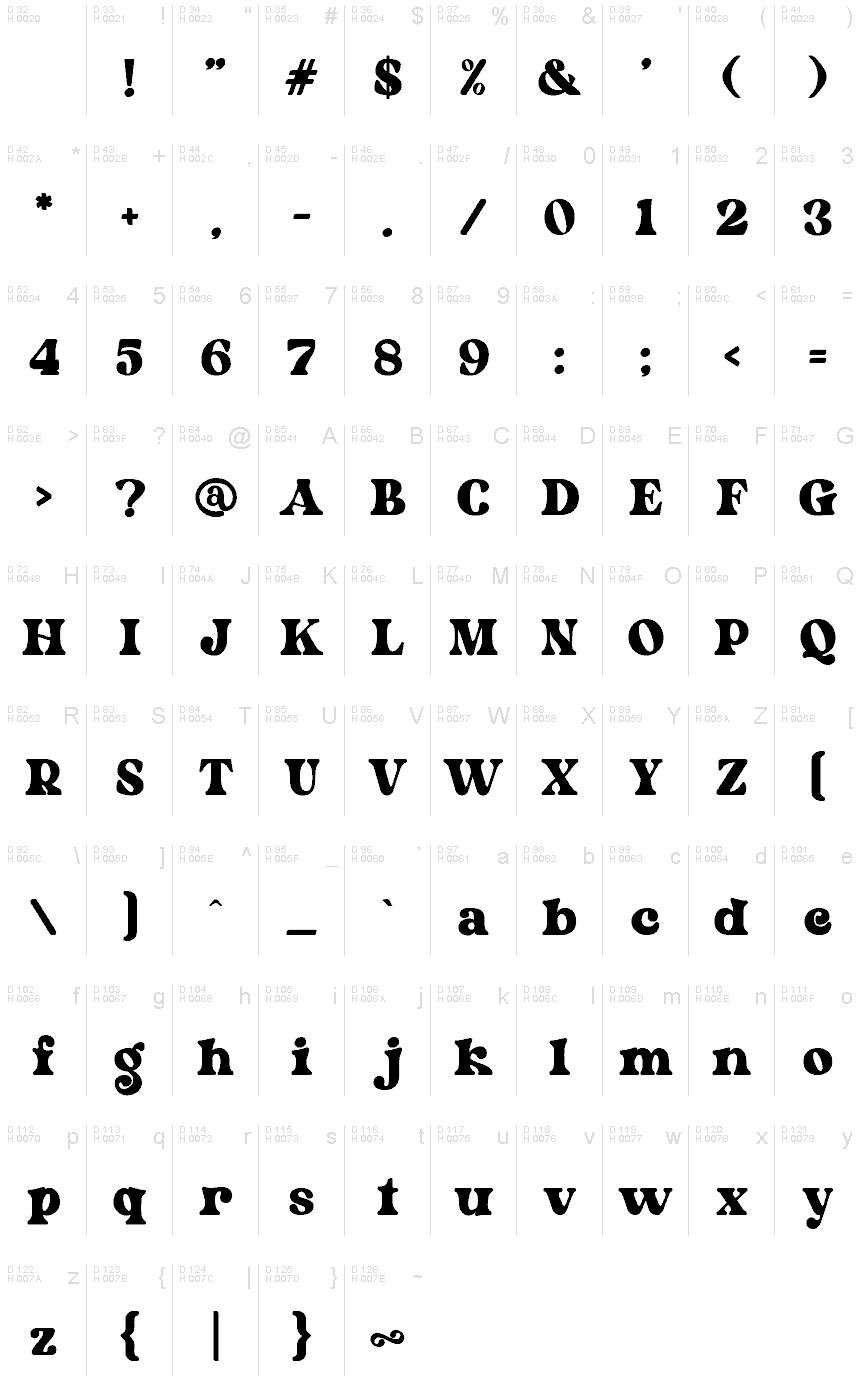
NCL Kerih Moady
If you’re looking for a font with a genuine old school feel with plenty of visual character and historical inspiration, then NCL Kerih Moady is an excellent free choice!
Created by Enxyclo Studio, this retro font is the perfect selection for headlines, posters, logo design, branding projects, label design, magazine covers, and vintage inspired accessories or apparel. Its rough edges, subtle curves, and solid bold characters give Kerih a timeless quality that you can take advantage of for a wide array of designs. It can be used with a minimal layout or included as the main element of a busy design to bring an authentic sense of adventure, grit, and nostalgia to any project.
NCL Kerih Moady is a great choice for vintage record shops, sports team apparel, classic car related accessories, barber shops, retro themed music festivals or clubs, vintage clothing stores, and many others!